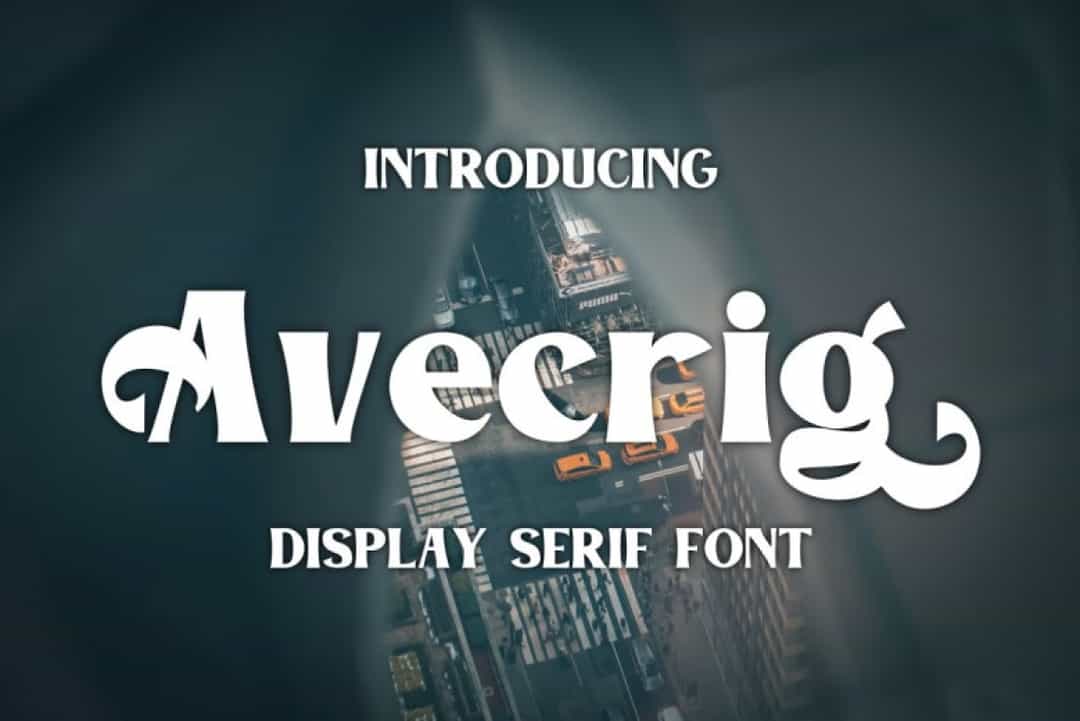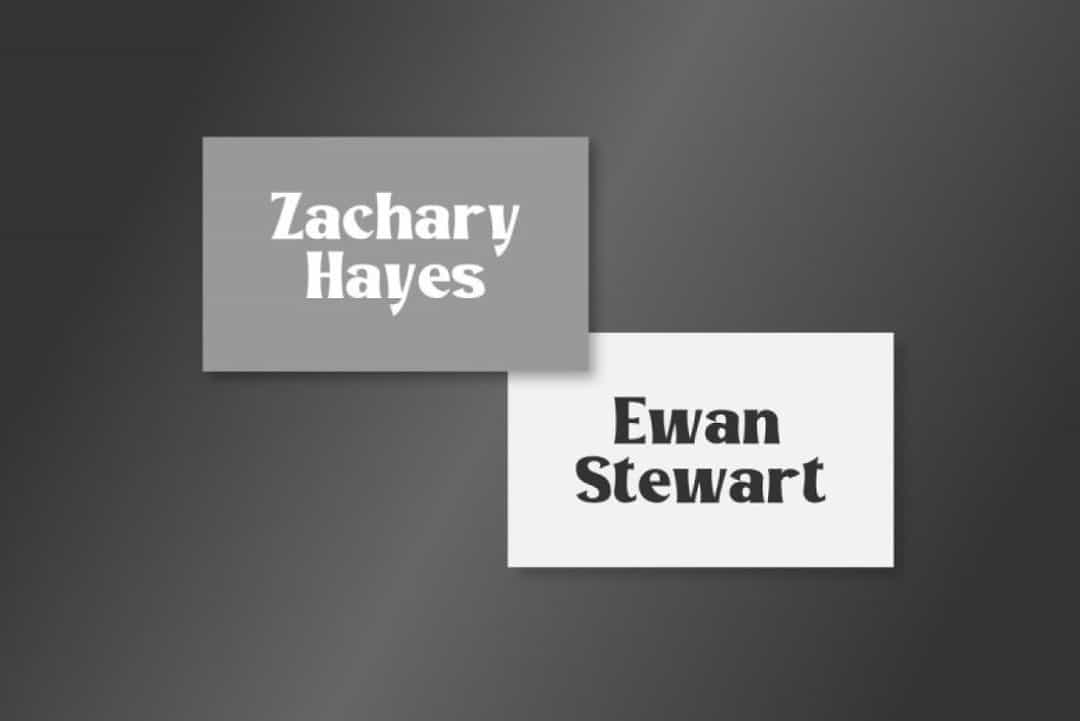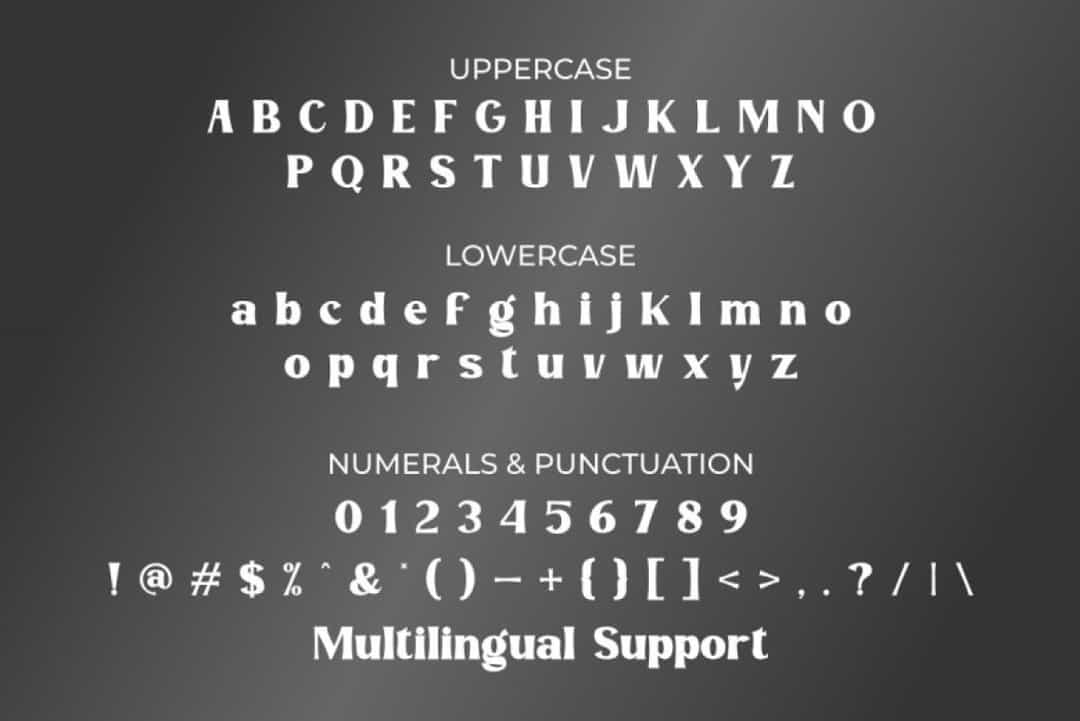
Discover Avecrig Font, part of the Serif Display collection—a versatile and unique font perfect for adding a personal touch to your projects. Download it for free and enjoy crafting designs with style, from invitations to social media posts. This font is available exclusively for personal use, giving you the freedom to create without limits. Unlock your creativity with Avecrig Font today!
Randi Irvan’s Avecrig display serif font is an impressive and striking display serif font designed by her and brings an eye-catching curvature while remaining elegant in beauty. Perfect for creating logos, branding invitations, stationery designs, wedding invites and social media posts; use this versatile font now!